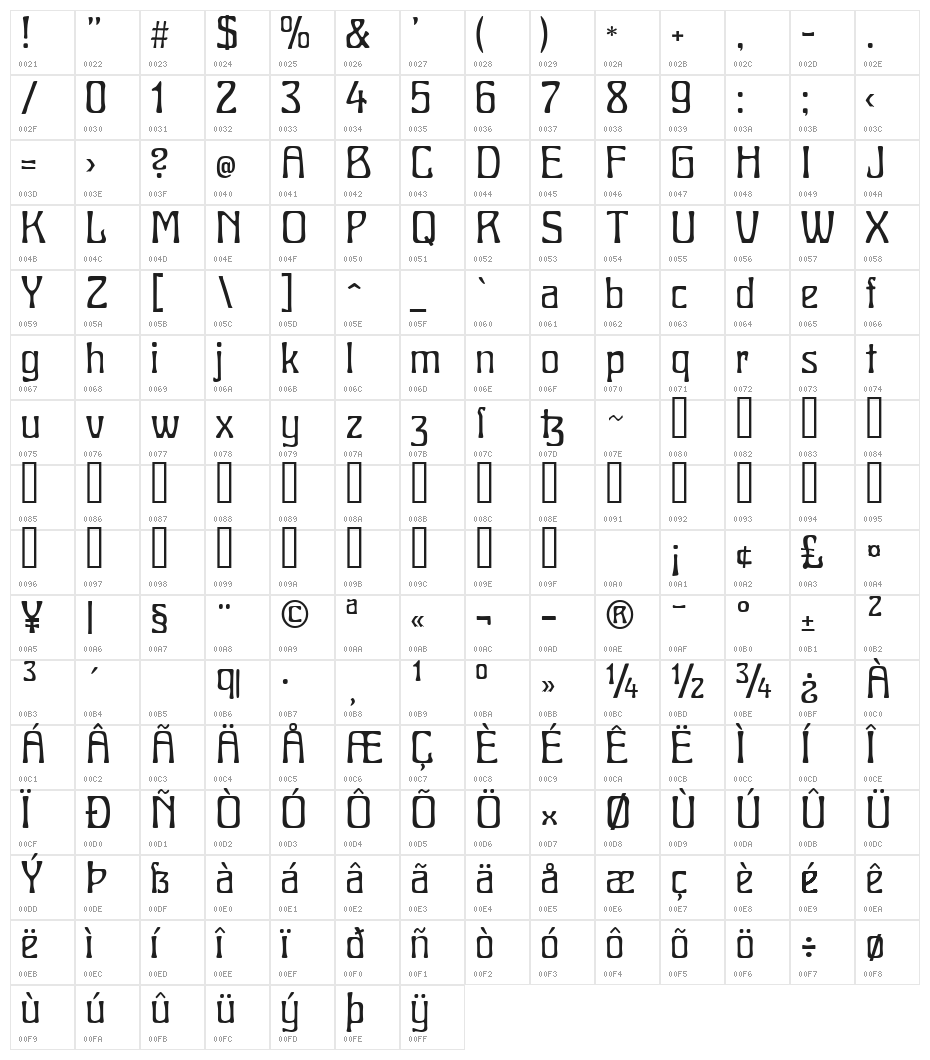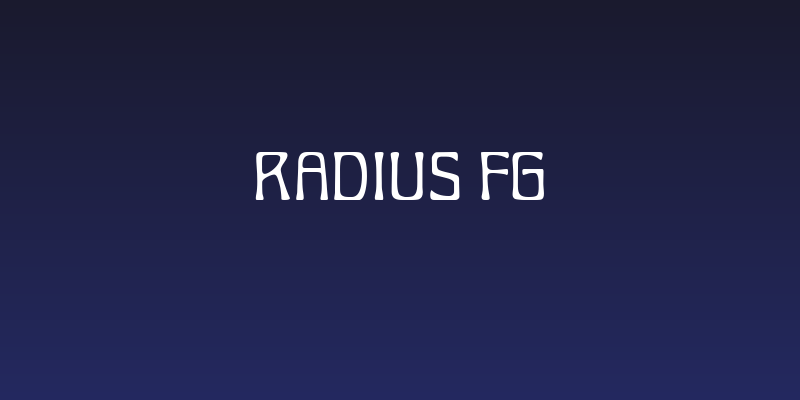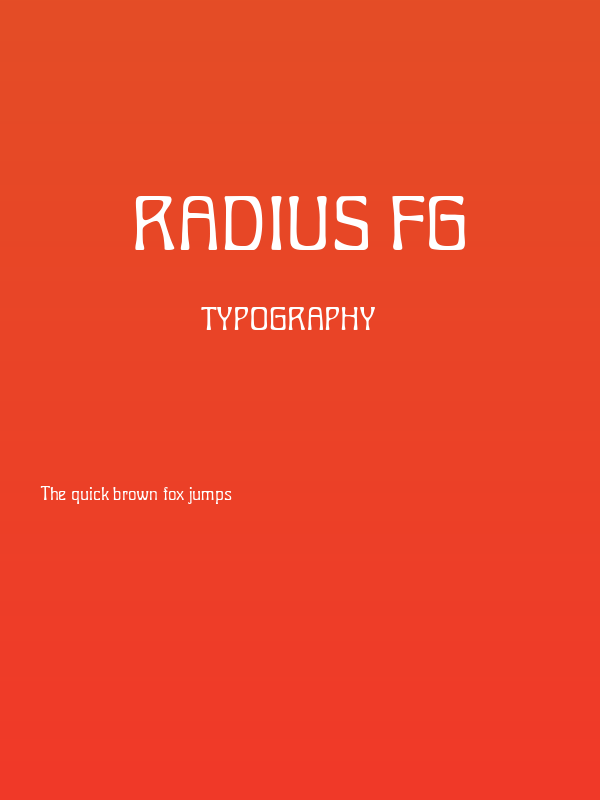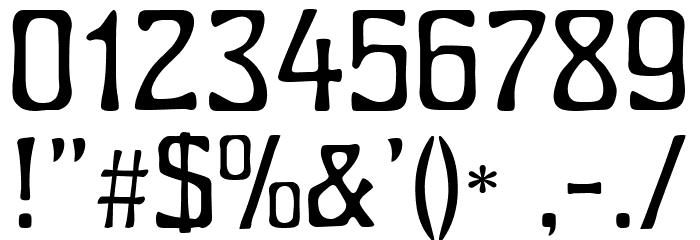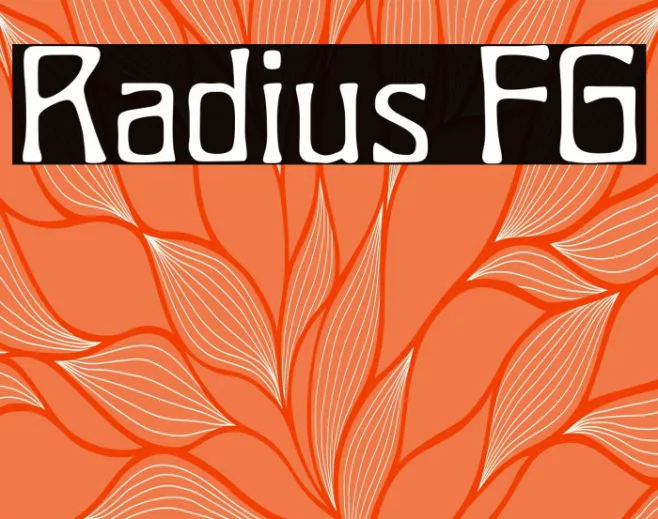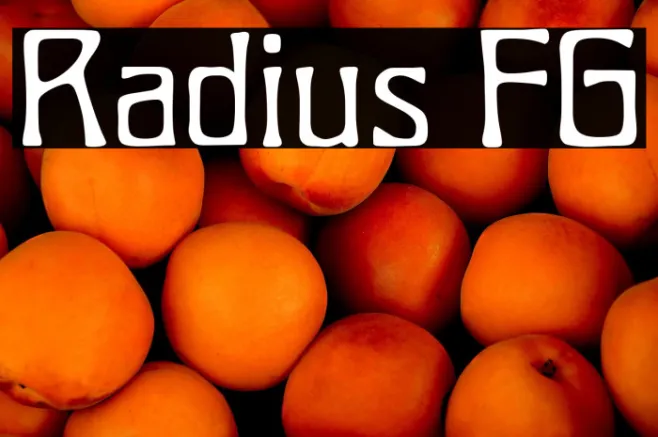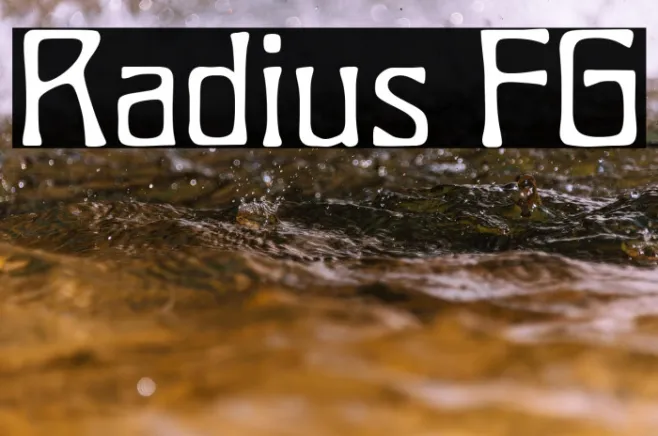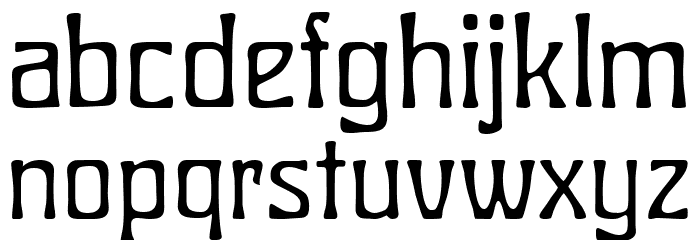
Radius FG Font
Radius FG Description
This font features a unique and playful design with slightly irregular strokes that give it a hand-drawn appearance. The characters have a consistent thickness, contributing to a cohesive look across both uppercase and lowercase letters. The numerals and special characters maintain the same whimsical style, making the font versatile for various creative applications. The rounded edges and subtle curves add a friendly and approachable feel, while the overall structure remains clear and legible. This font is well-suited for projects that require a touch of personality and charm, such as children's books, playful branding, or artistic posters.
| Overall Style | Playful, Artistic |
| Proposed Projects | Ideal for children's books, playful branding, artistic posters, and creative invitations. |